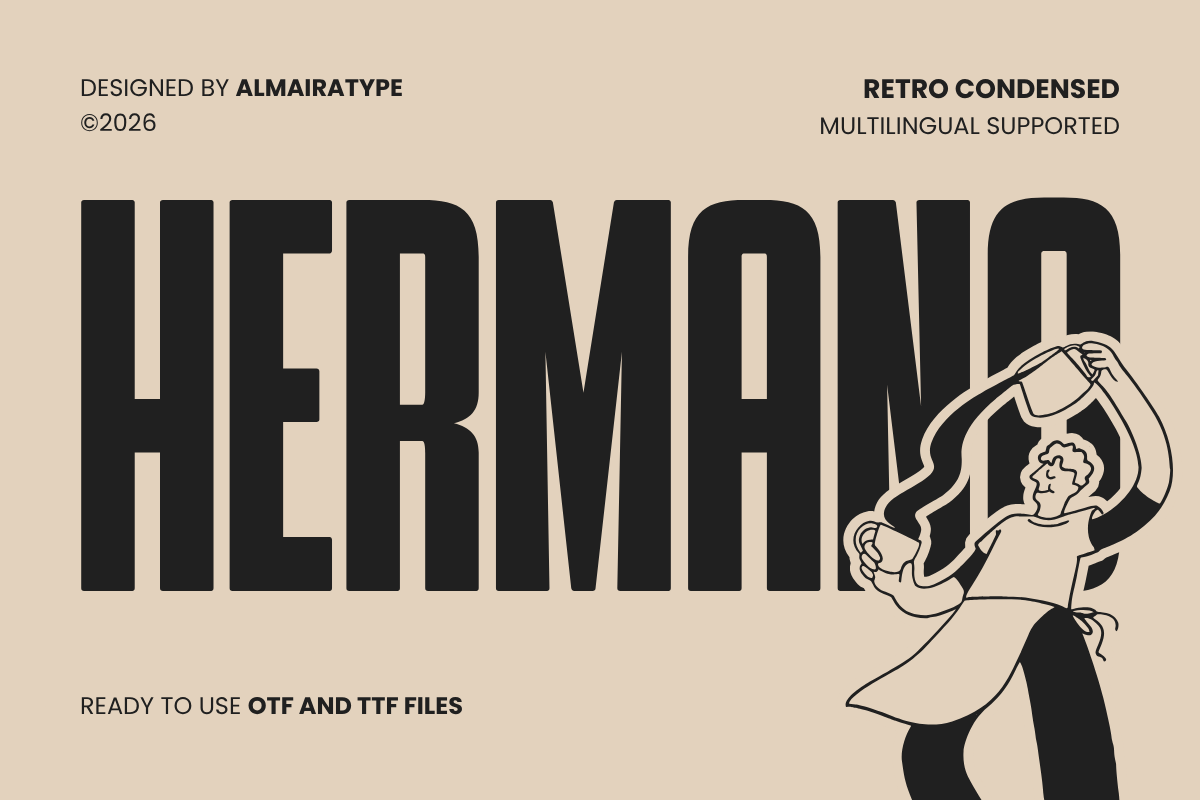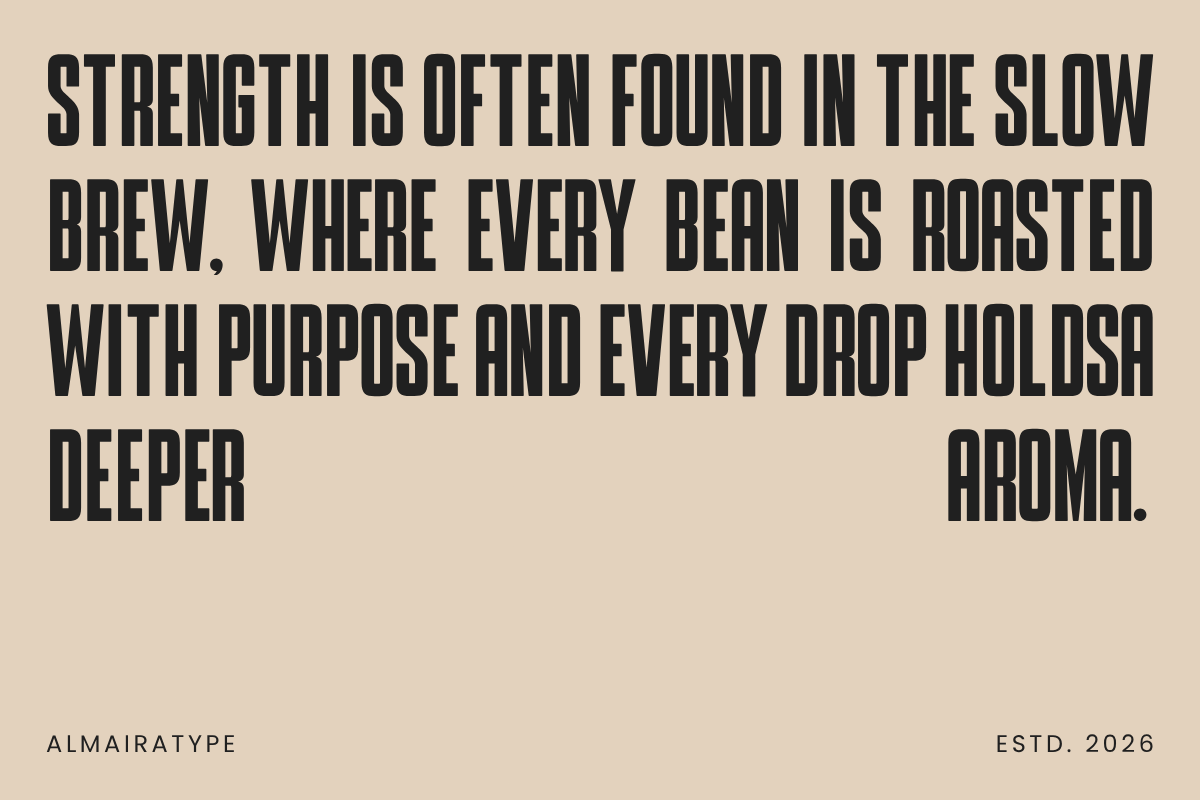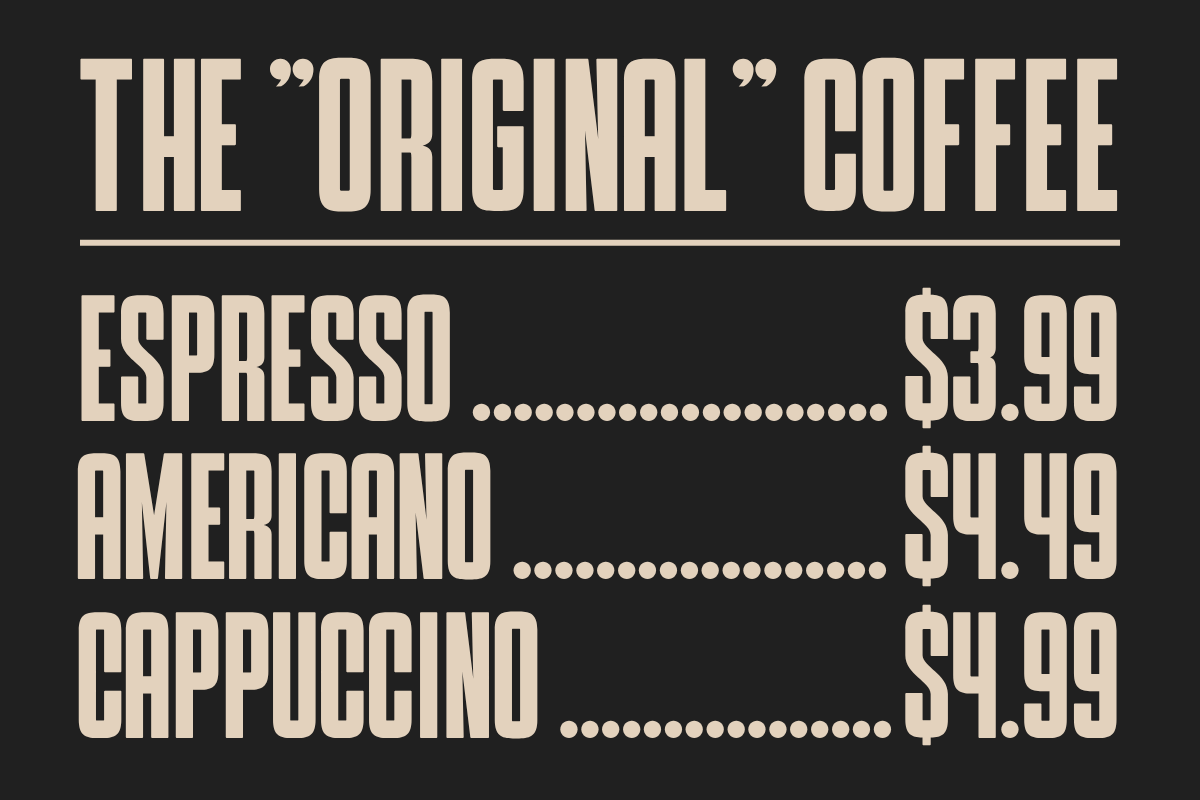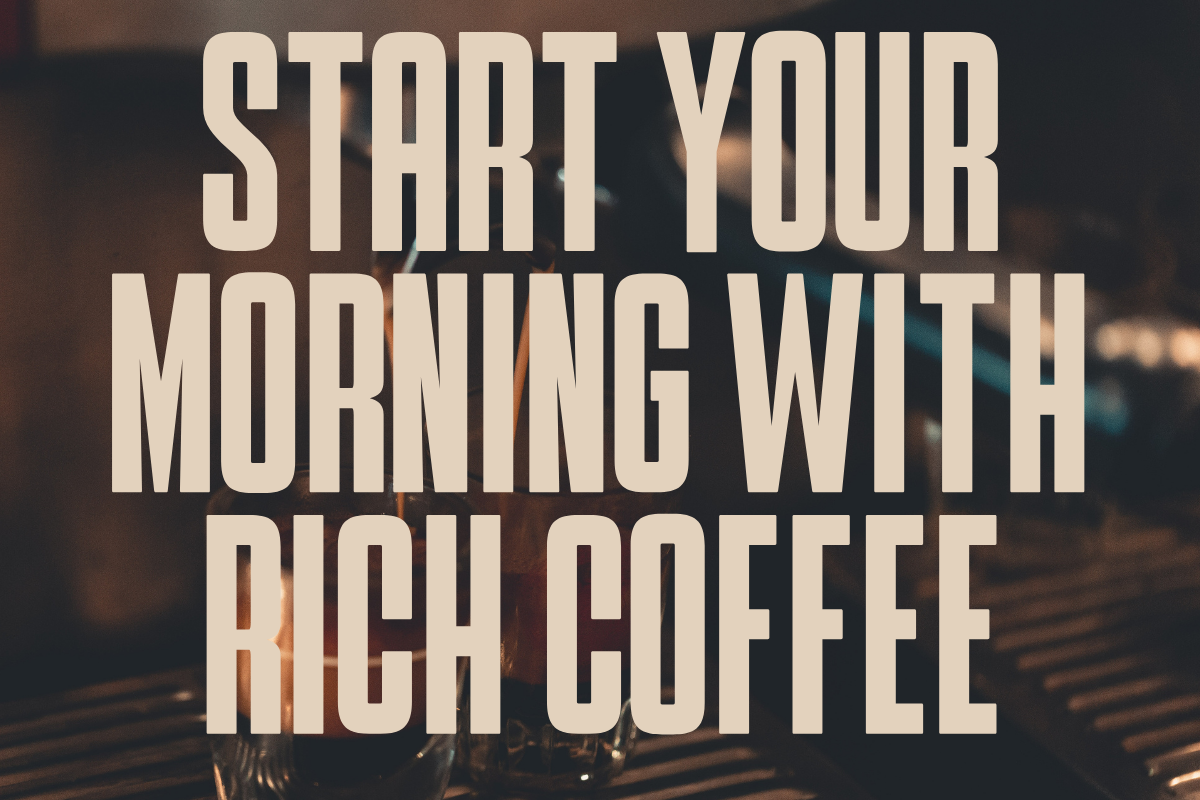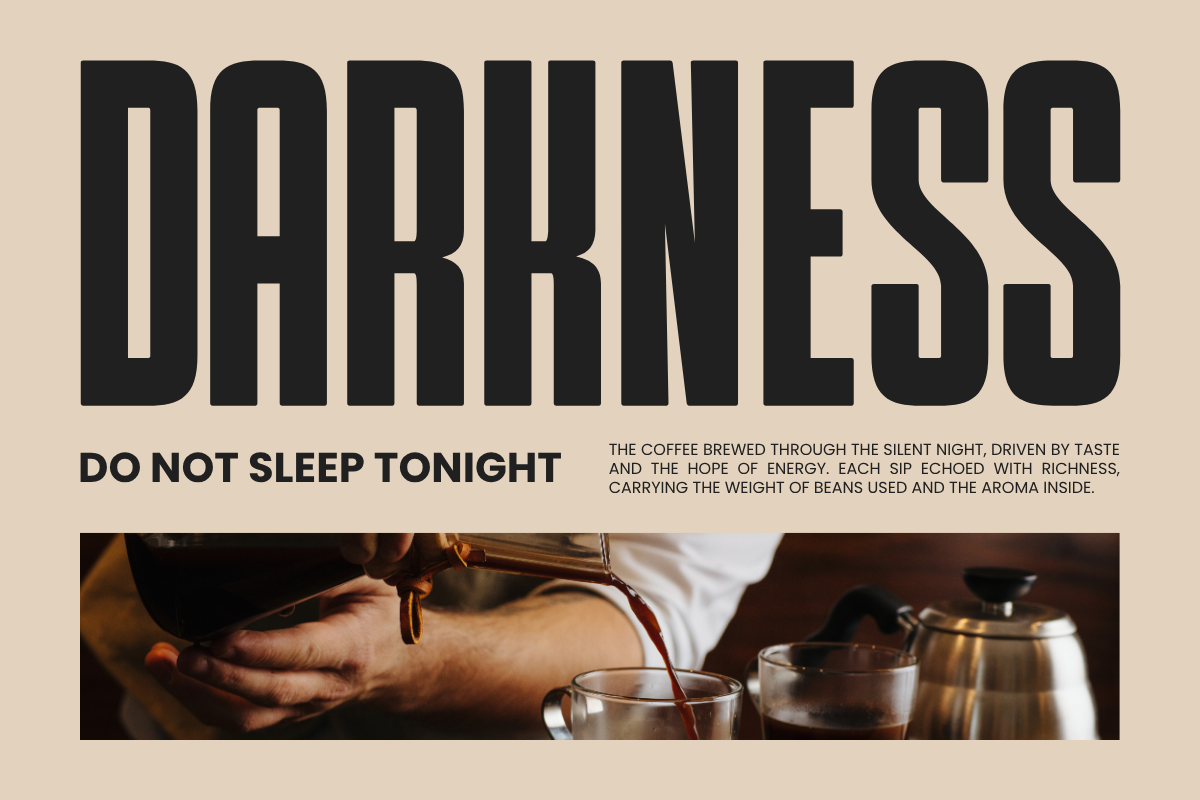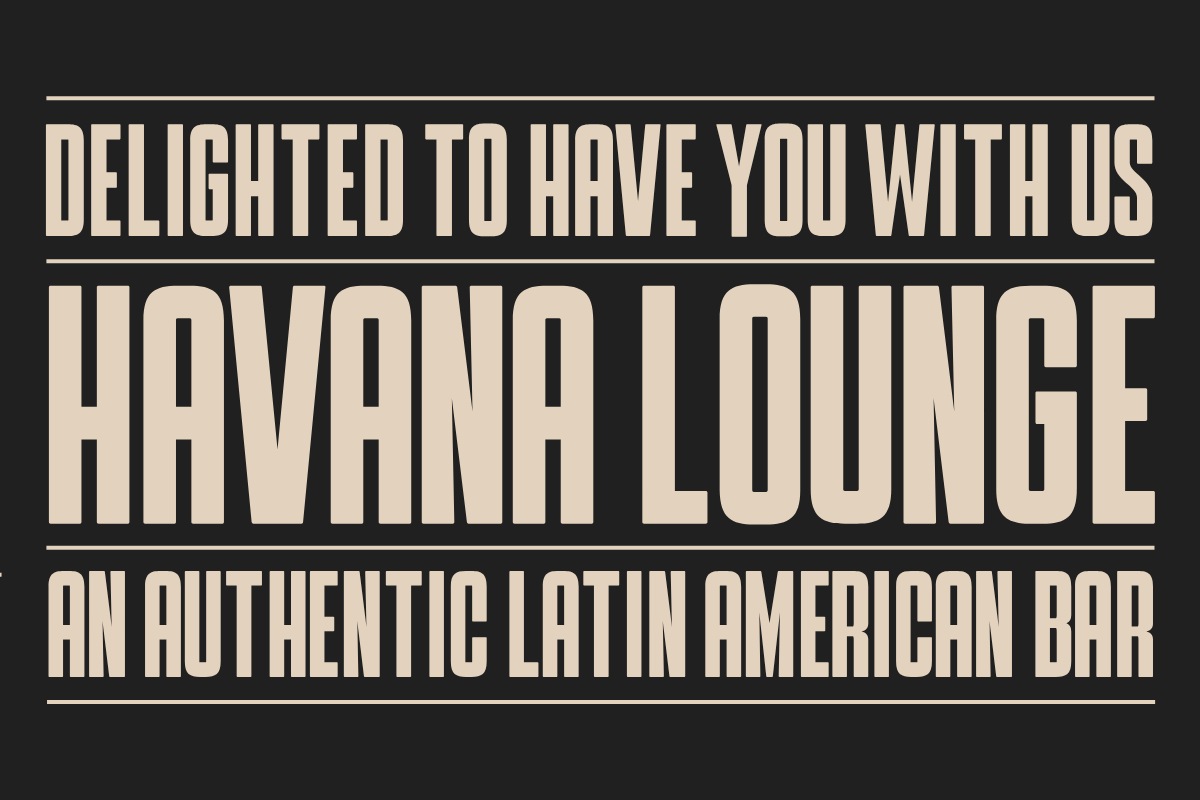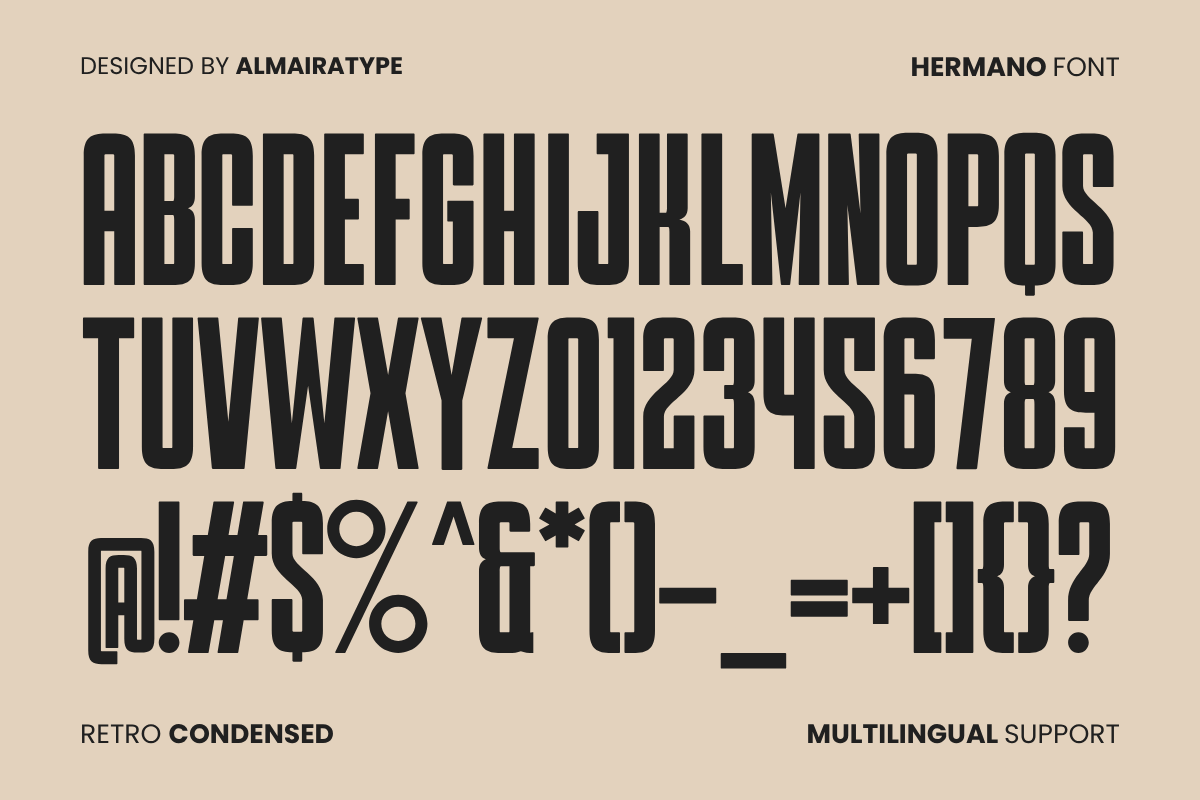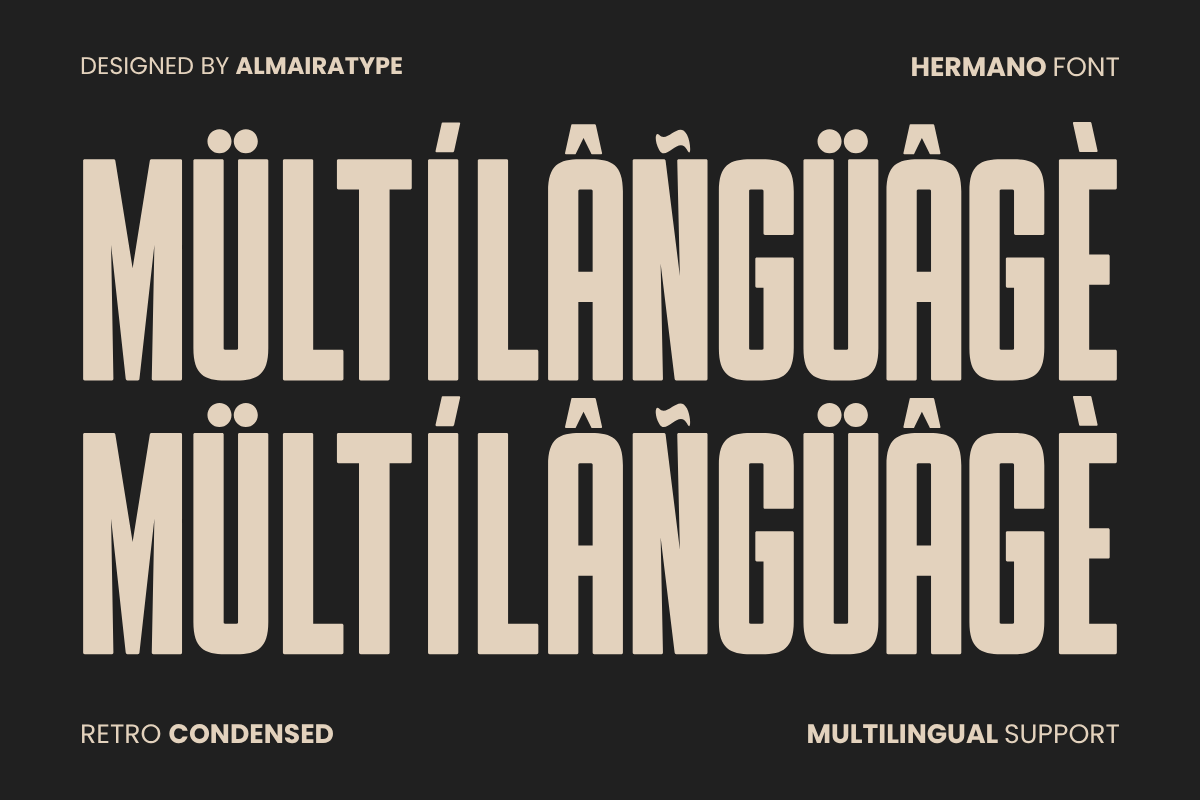
Make a bold, commanding, and delightfully nostalgic statement with Hermano, an ultra-bold tall condensed retro sans serif font engineered for creators who want their headlines to pop with a stylish, coffee-lifestyle charm. Meticulously structured with a heavy display weight, tall narrow baselines, and softly rounded corners, this versatile font brings an instant blend of vintage cafe culture warmth and clean modern commercial professionalism to any creative canvas.